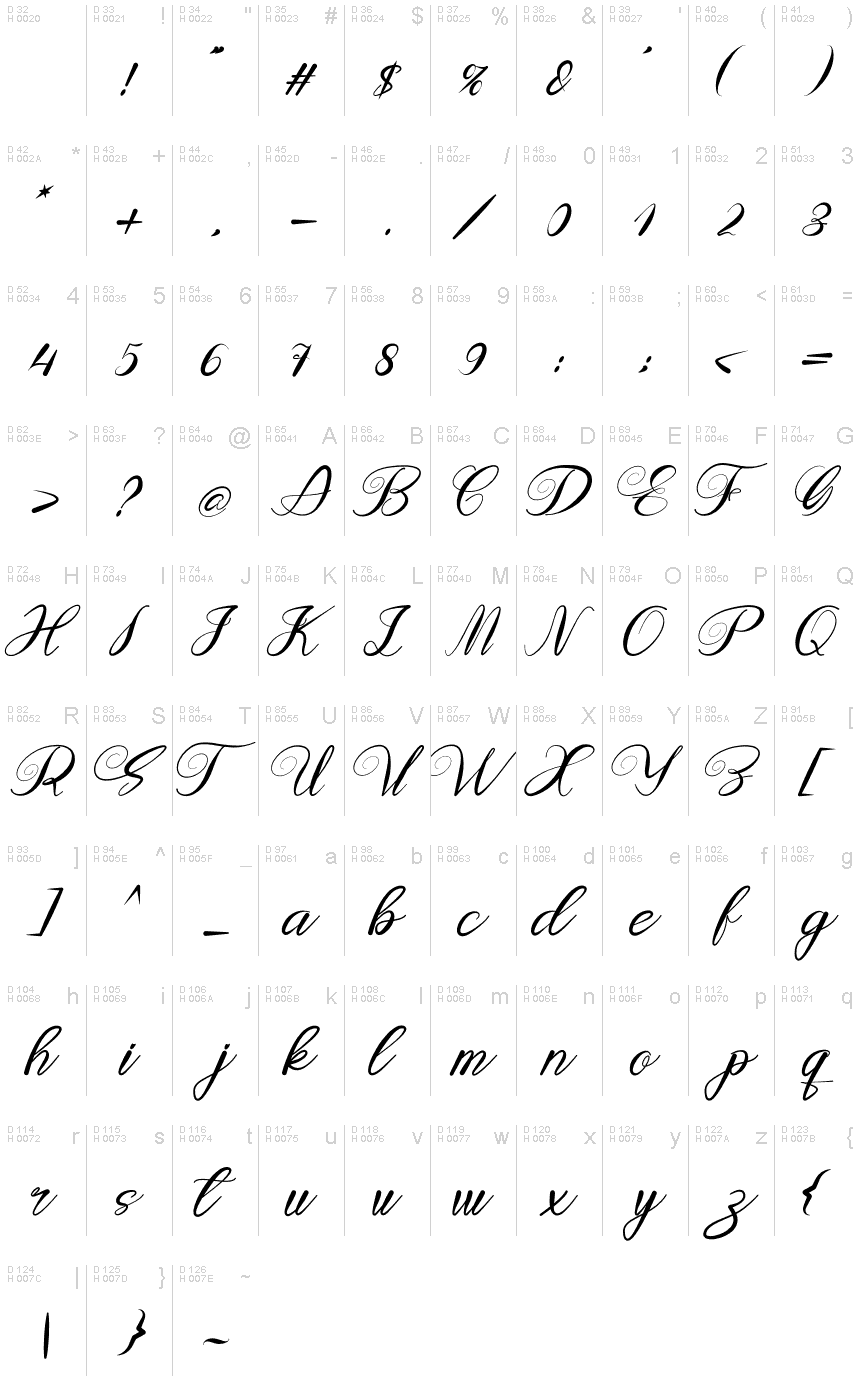
Ayatts Italic
Ayatts Italic is a stunning calligraphy font that adds a touch of elegance and sophistication to any project. Designed by Design Vector10, this semi-light typeface boasts graceful curves and delicate strokes that mimic the look of traditional handwritten calligraphy. Ayatts Italic is perfect for wedding invitations, formal event announcements, and high-end branding projects. Its unique style also makes it suitable for artistic endeavors such as poetry books or graphic novels. With Ayatts Italic, you can add a touch of class to any project while still maintaining readability and search engine optimization.